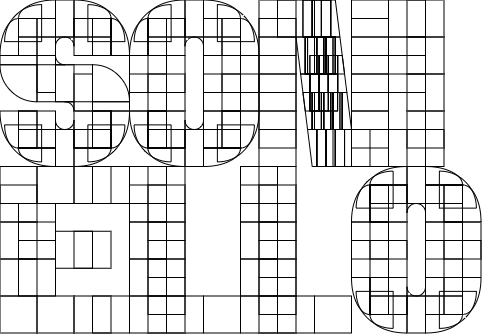
This is an interesting font, old-school grotesque, wood-fonts come to mind. If you don't intend to do lowercase, alternative characters could be added to lowercase. As for the alternatives, they could also be made for Z E F, making them narrower for E F horizontal lines of the same length.
Ok, sounds good @Dmitriy Sychiov (Sychoff)!
Here is the alternative numbers for use!